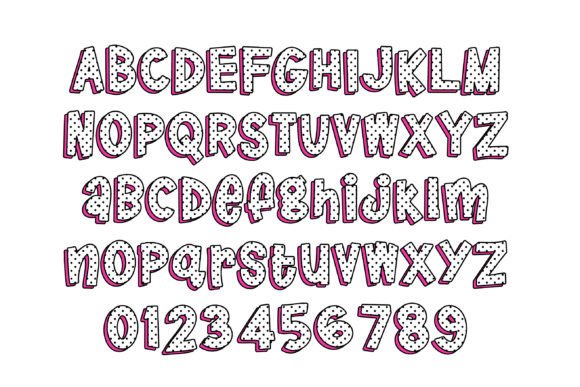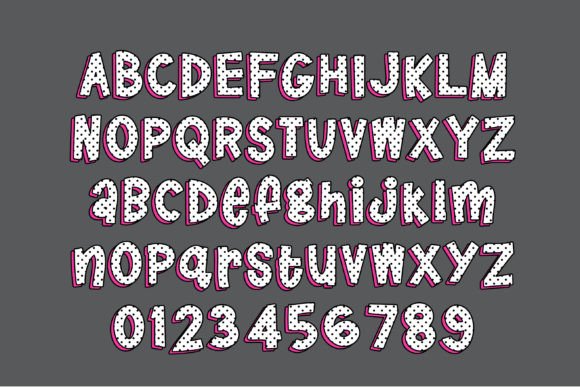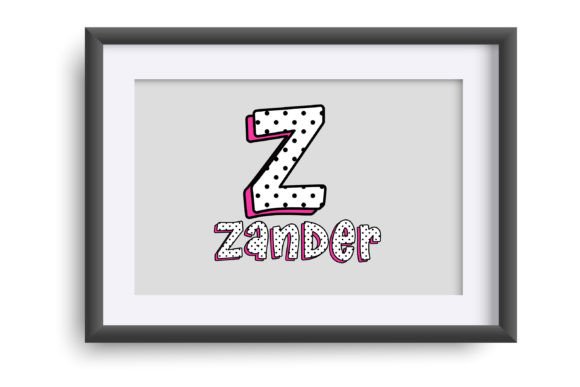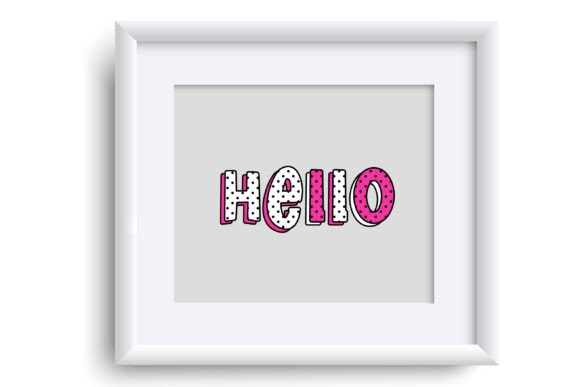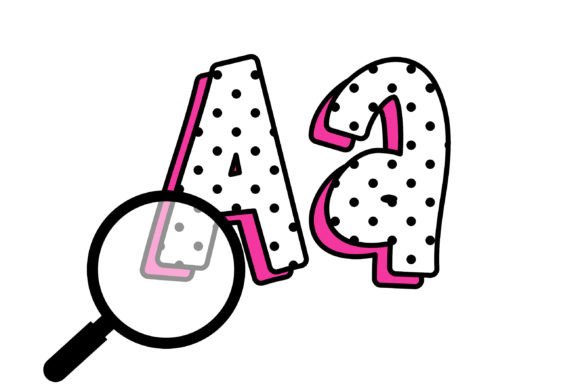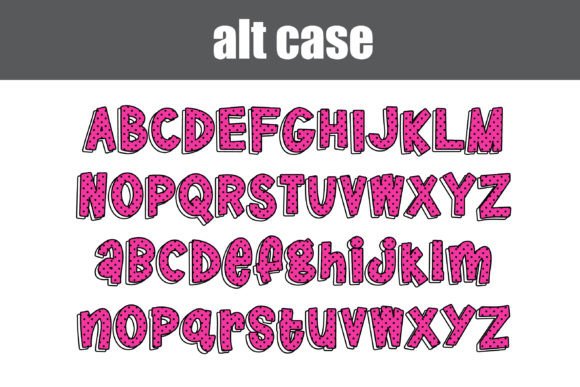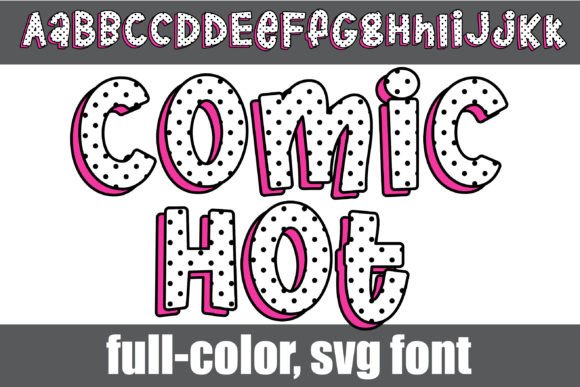
Introducing Comic Hot Font: The Ultimate Choice for Designers and Crafters
Are you tired of using the same old fonts for your design projects? Do you want to add a pop of color and fun to your creations? Look no further than the Comic Hot Font, a full-color font that features comic-style lettering in pink and black. This versatile font is perfect for designers and crafters who want to take their projects to the next level.
What is Comic Hot Font?
Comic Hot Font is a unique and high-quality font that features comic-style lettering in pink and black. The font comes with an alternate version of each letter in a different color, which can be accessed through your system or Silhouette’s character map. This means that you can easily switch between different colors and create stunning designs with ease.
Features of Comic Hot Font
• Full-color SVG font: Comic Hot Font is a full-color SVG font, which means that it can be used for a variety of projects, from crafting to digital design.
• Comic-style lettering: The font features comic-style lettering in pink and black, adding a fun and playful touch to your designs.
• Alternate color options: Each letter has an alternate version in a different color, which can be accessed through your system or Silhouette’s character map.
• High-quality design: The font is designed with high-quality and versatility in mind, making it perfect for a range of projects.
Why Choose Comic Hot Font?
If you’re looking for a font that can add a touch of fun and personality to your designs, then Comic Hot Font is the perfect choice. Here are just a few reasons why:
• Versatility: Comic Hot Font can be used for a variety of projects, from crafting to digital design. Whether you’re creating greeting cards, party decorations, or social media graphics, this font is sure to impress.
• High-quality design: The font is designed with high-quality and versatility in mind, making it perfect for a range of projects.
Project Ideas for Comic Hot Font
Comic Hot Font is a versatile font that can be used for a variety of projects. Here are just a few ideas to get you started:
• Greeting cards: Use Comic Hot Font to create fun and colorful greeting cards for birthdays, holidays, and other special occasions.
• Party decorations: Create stunning party decorations, such as banners, garlands, and signs, using Comic Hot Font.
• Social media graphics: Use Comic Hot Font to create eye-catching social media graphics, such as Facebook posts, Instagram stories, and Twitter headers.
• Craft projects: Comic Hot Font is perfect for a range of craft projects, such as scrapbooking, die-cutting, and paper crafting.